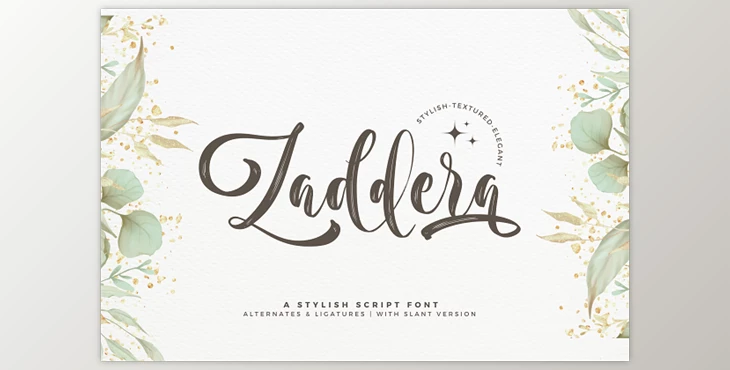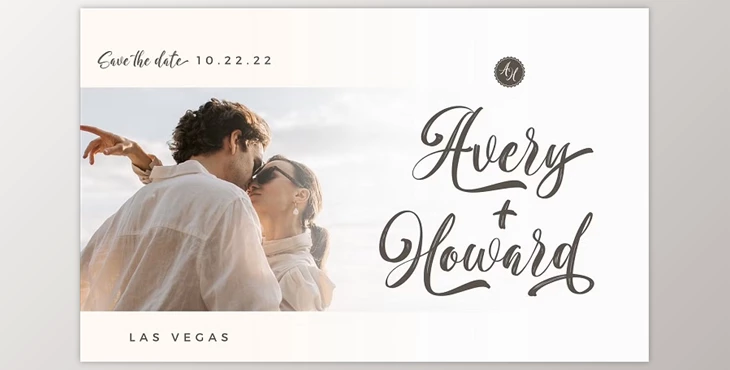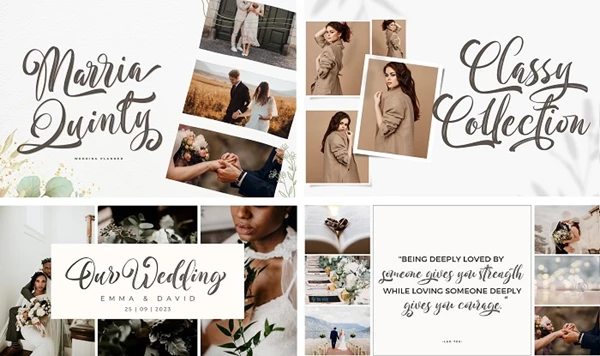
Zaddera - A Stylish Script Font presents a chic and elegant typeface exuding luxury and sophistication. Ideal for various applications like wedding invitations and event signage, this ornate font offers a touch of romance to projects.
With multilingual support and options for alternates, ligatures, and slant versions, designers can effortlessly customize their text for a personalized aesthetic. Discover the versatility and charm of Zaddera Script Font to elevate your designs with a timeless allure.